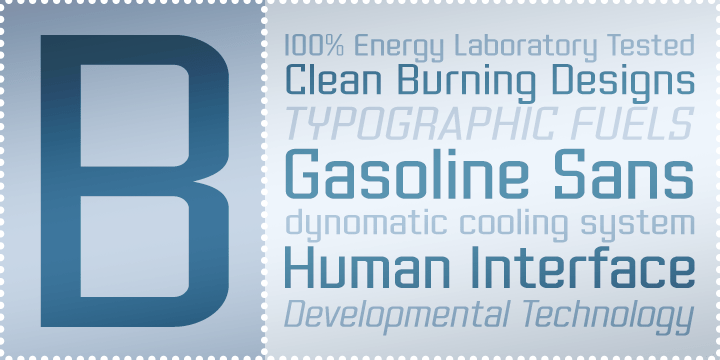
Gasoline Sans BTN
Gasoline Sans BTN is a clean geometric sans serif family built around clarity, simplicity, and modern legibility. Inspired by pure geometric letterforms, it delivers a straightforward, honest voice with just enough personality to keep it from feeling sterile. Its crisp construction makes it a strong choice for branding, editorial design, packaging, advertising, signage, web graphics, and business communication where a polished contemporary sans is needed. With Light, Regular, Bold, and matching oblique styles, Gasoline Sans BTN offers flexible options for creating clear, versatile typography with a modern graphic presence.